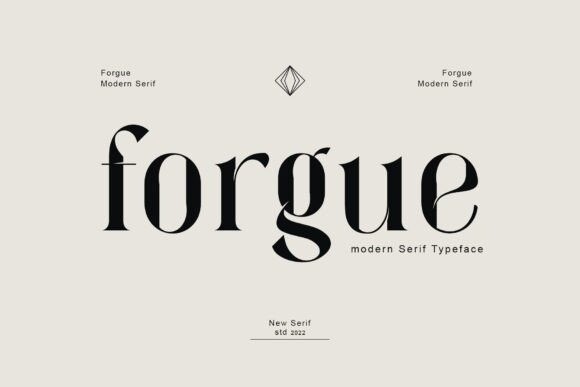
Forgue Font
Forgue is a lovely and timeless serif font. It is the best choice for creating eye-catching logos, branding and quotes. Every letter has a unique and beautiful touch, which will make your design come alive!